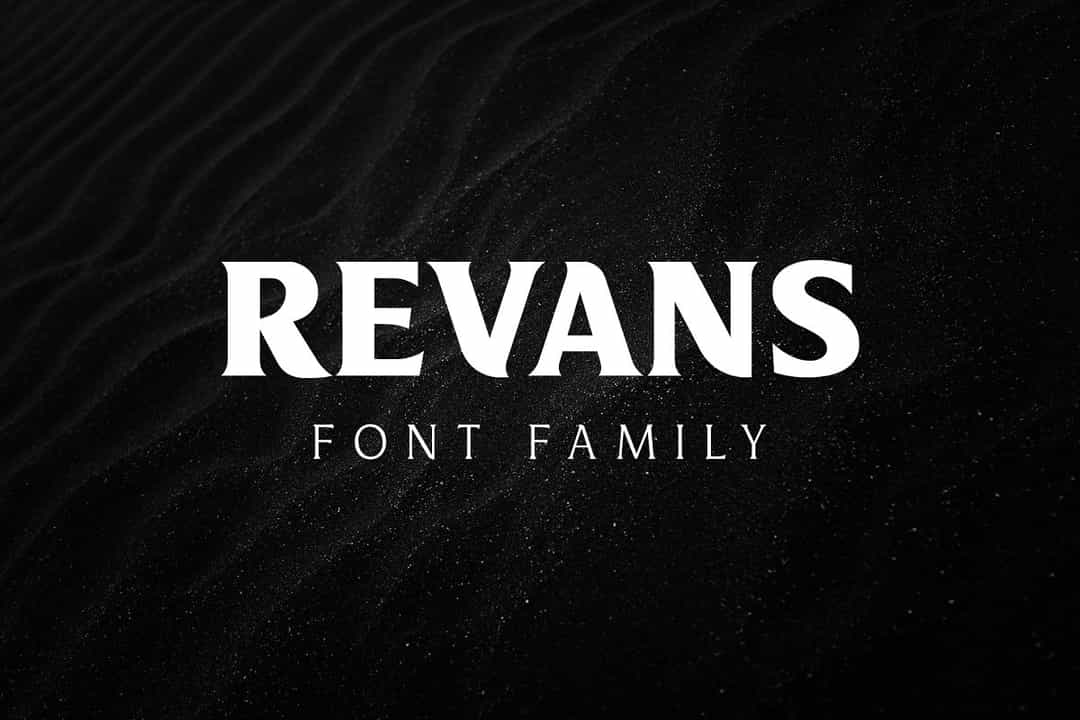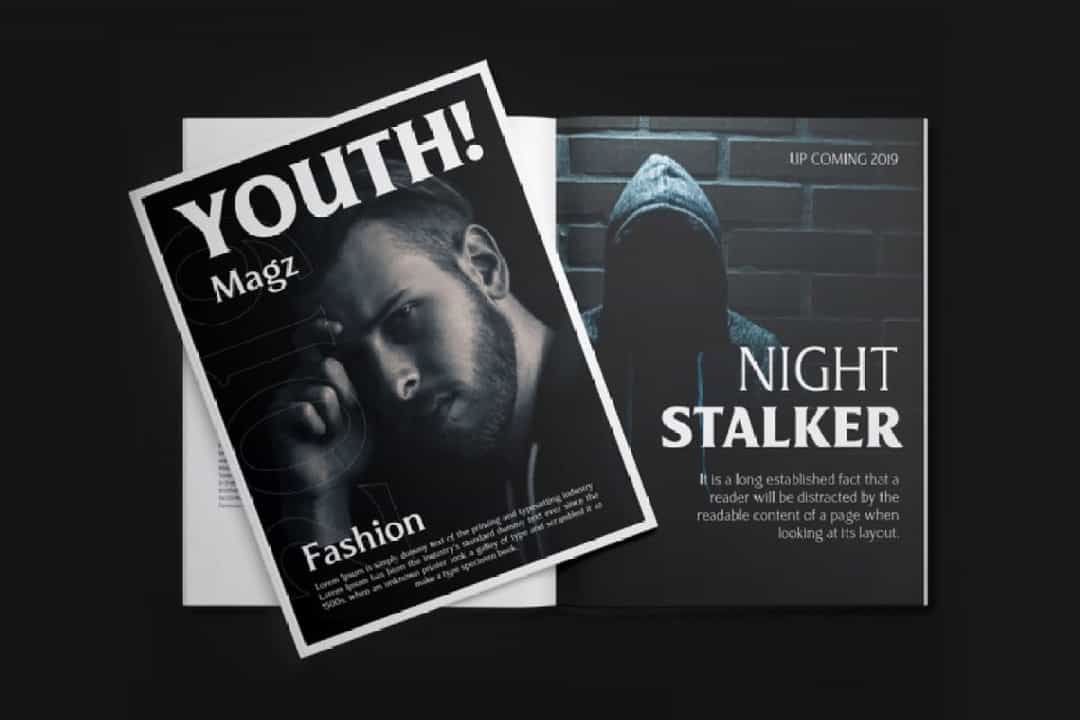
The Revans font family is a bold sans-serif font that has moderate contrast and belongs to the High Octane Rock music and contemporary-classic designs. Provided with narrow shoulders on the ascending parts of the letter, and acute serif font enhancement on the letters for more definition.